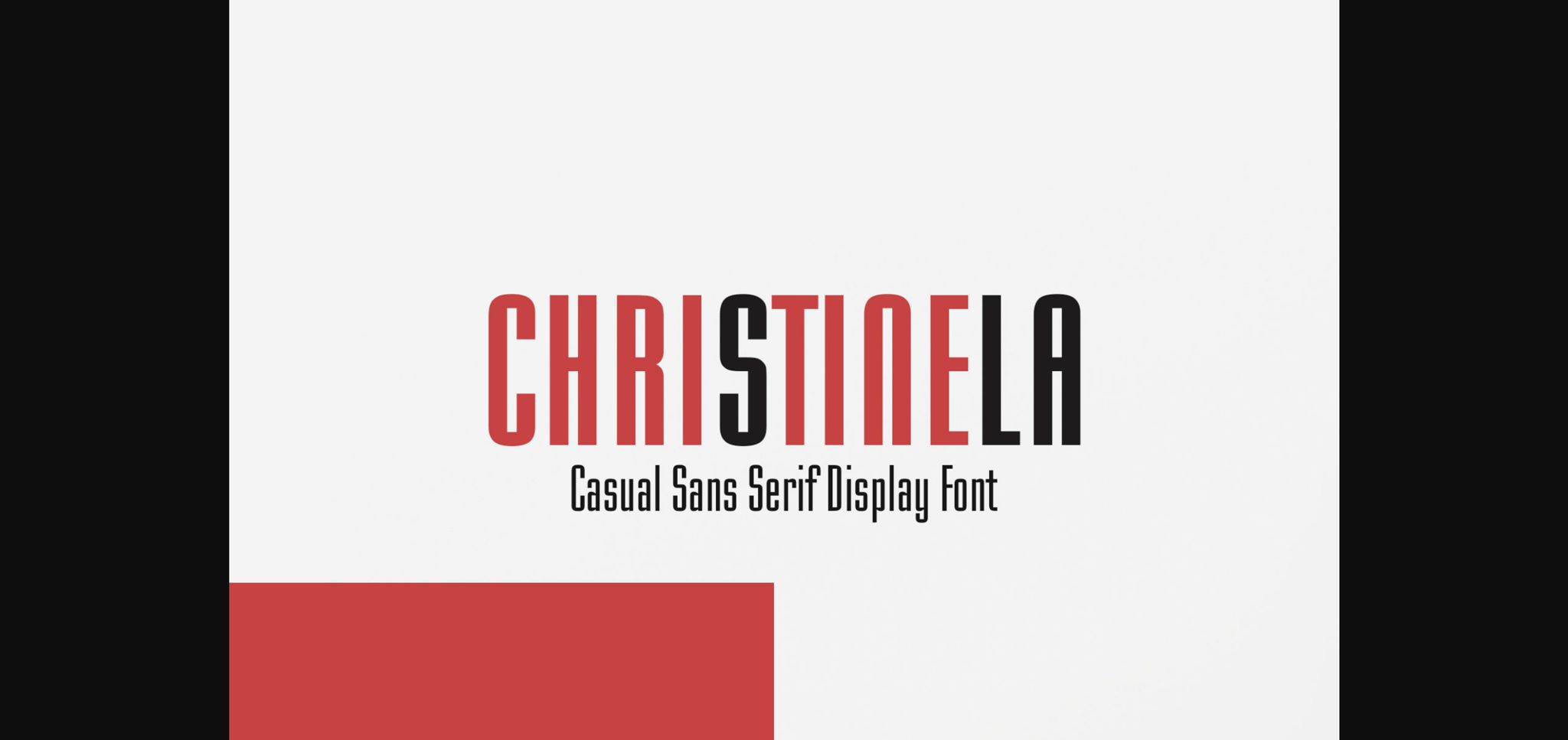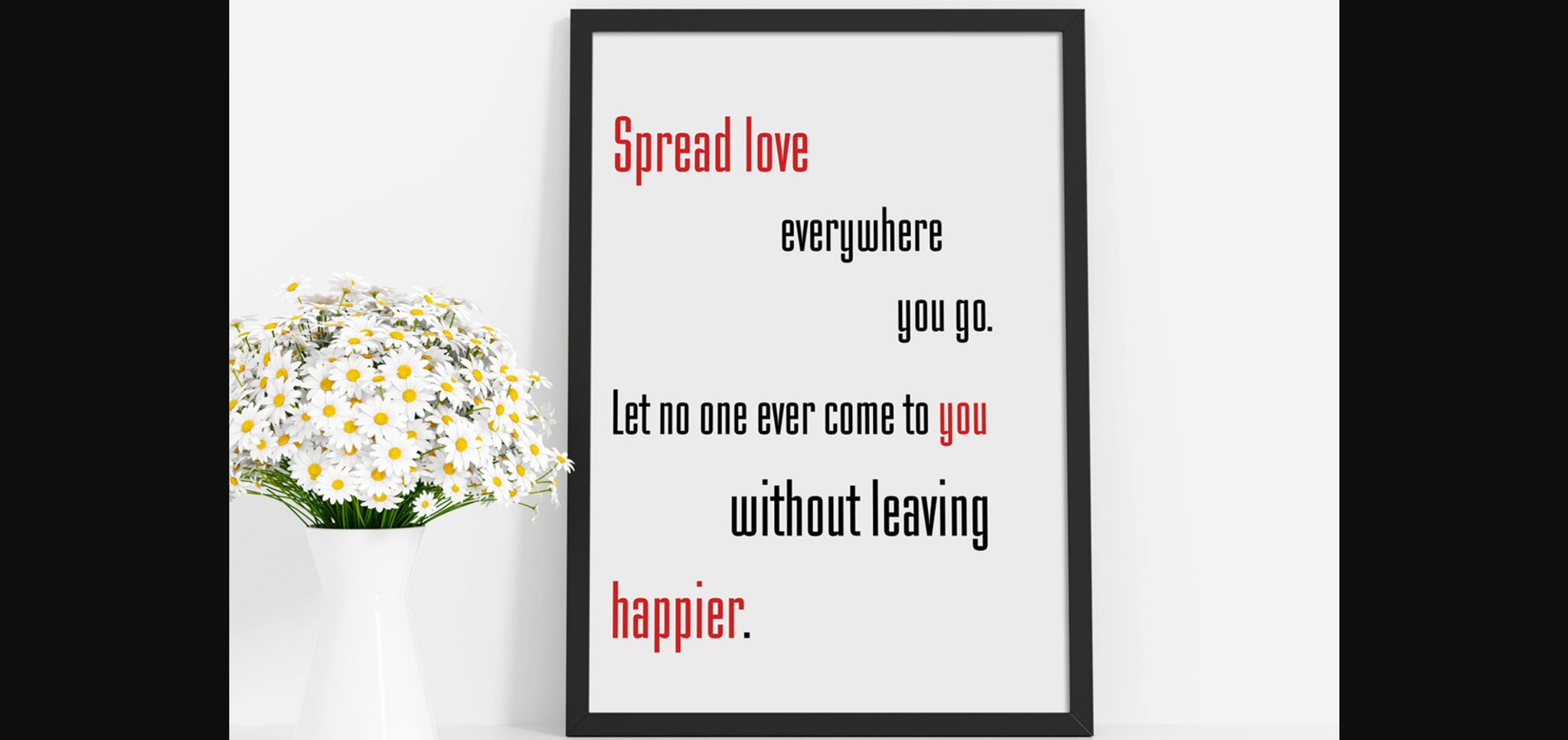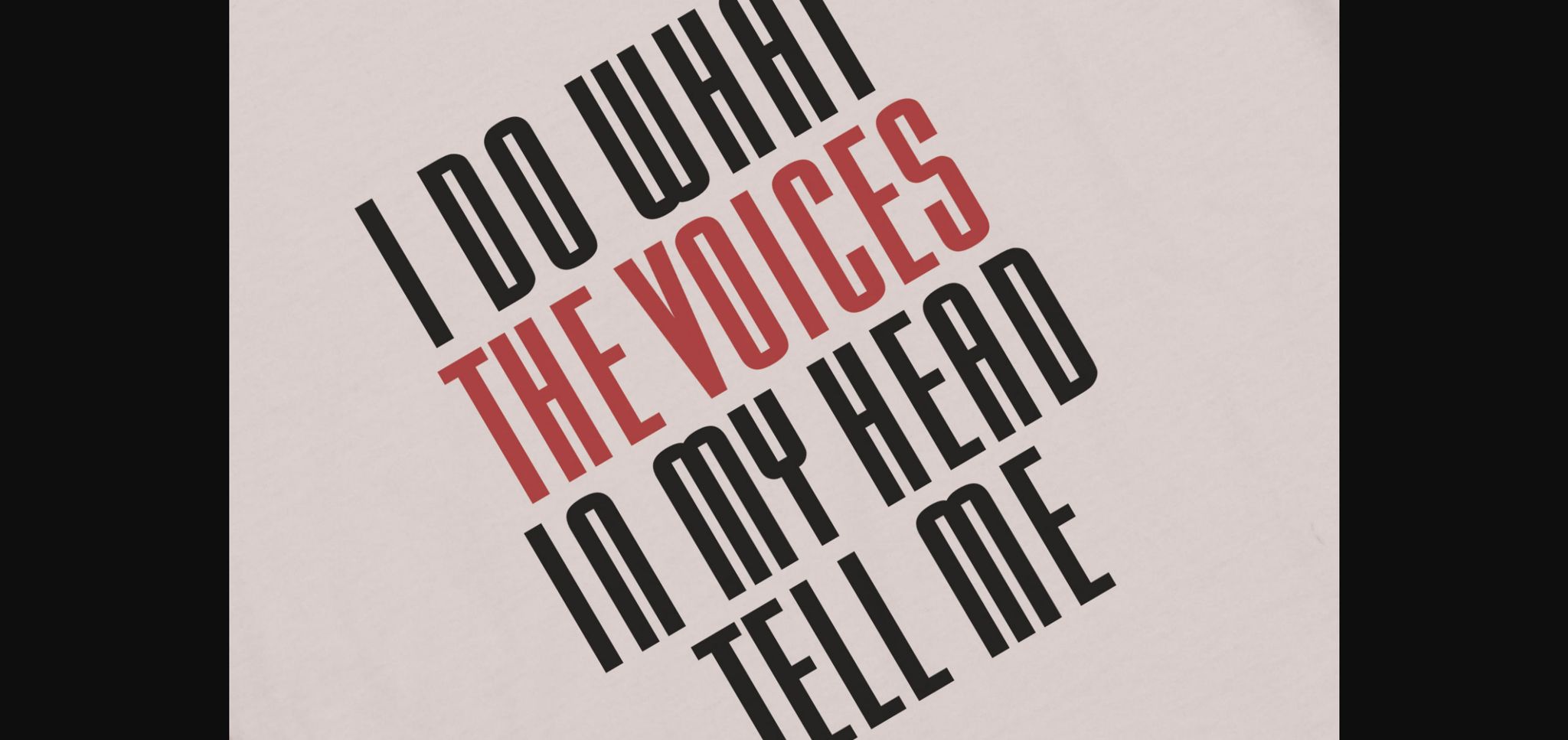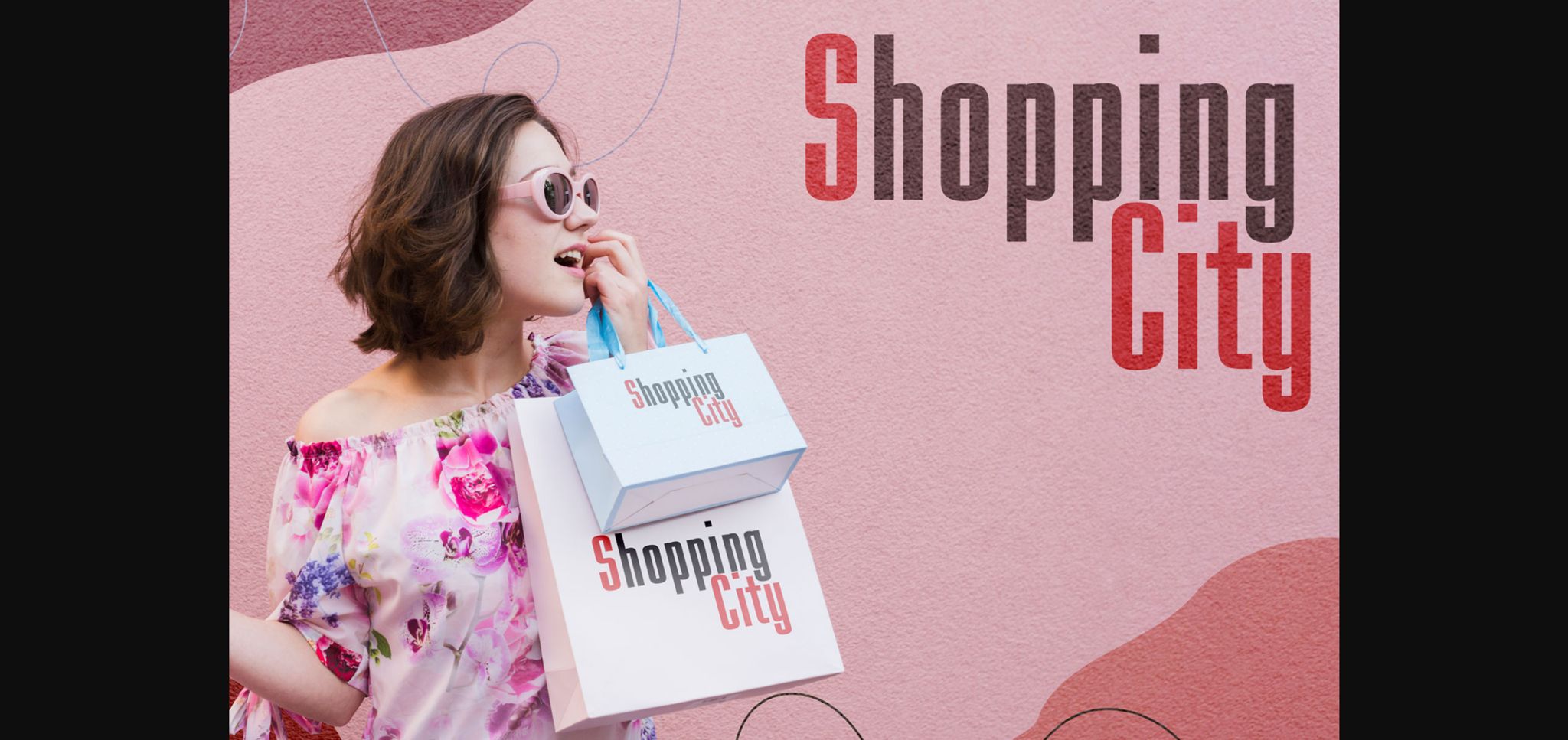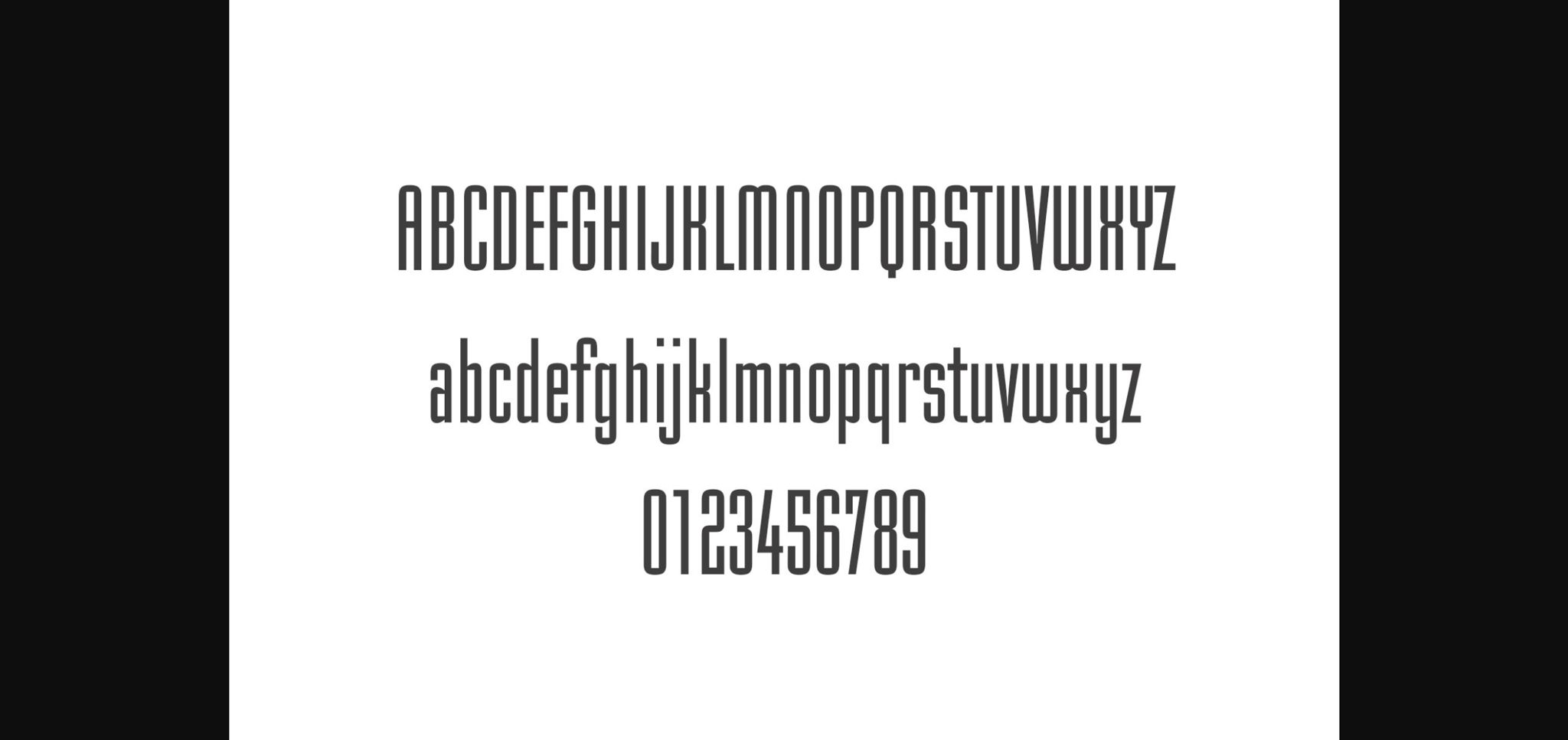
Christinela is a casual and modern sans serif font. It can be used for various purposes such as logos, wedding invitations, headings, t-shirts, letterhead, signage, labels, news, posters, badges and so much more.